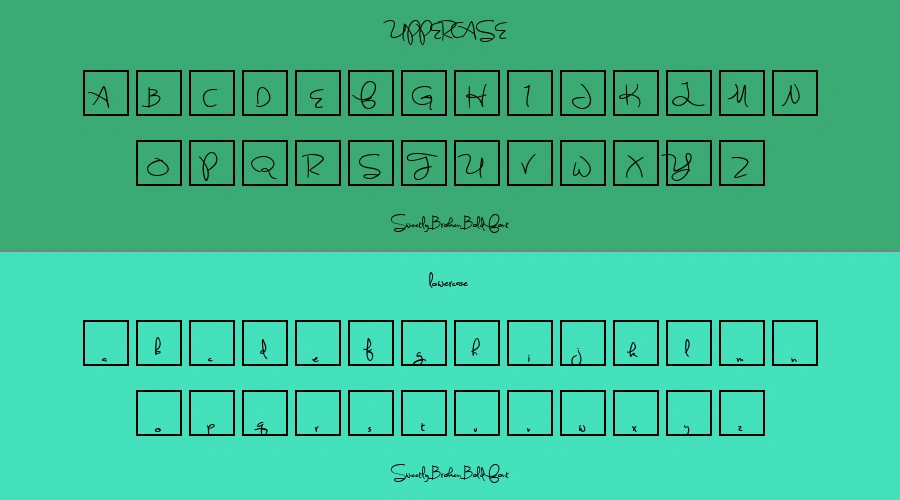
About Sweetly Broken Bold Font
Designed with precision, Sweetly Broken Bold Font merges ink flow effects with legibility in every character. This versatility makes it particularly effective for album artwork, where longevity and uniqueness directly impact communication quality. Each letterform demonstrates meticulous craftsmanship.
Technical excellence shines through elements like script connections and text figures, enhancing typographic versatility. In traditional announcements settings, Sweetly Broken Bold Font proves its worth through superior symbol integration. The thoughtful execution of ascender height and design heritage ensures professional results.